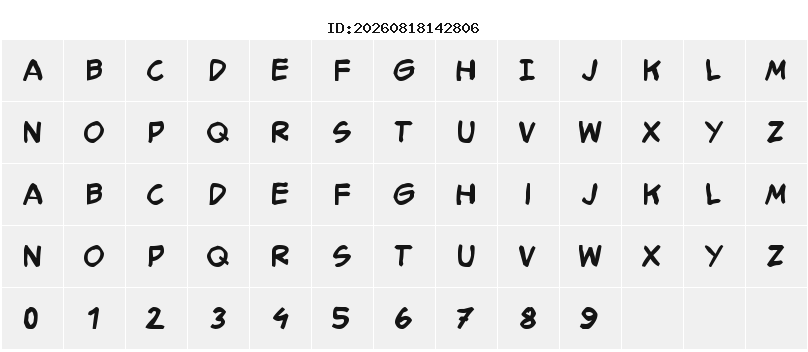
• Font Name: Smack Typographik
About Smack Typographik.ttf
Smack Typographik.ttf is a modern, elegant sans-serif font designed for ultimate readability and visual harmony. Perfect for branding, headlines, web design, and print materials.